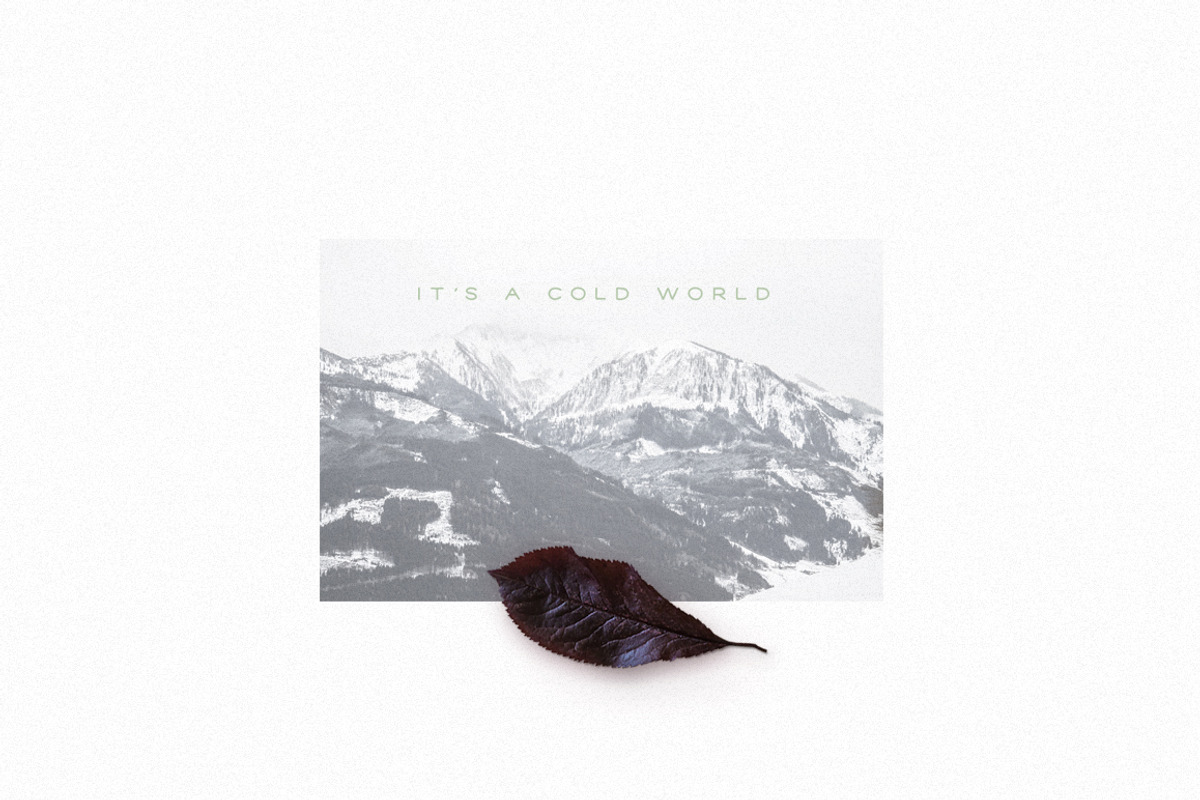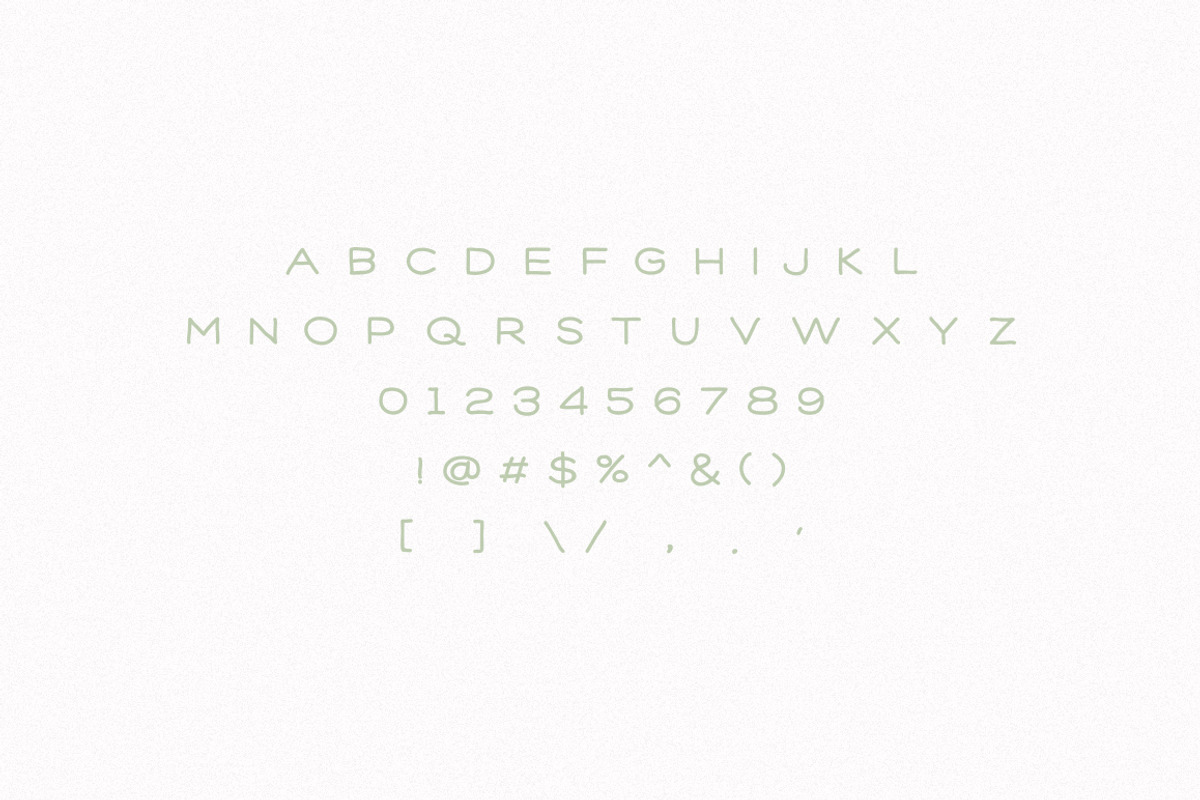
Cold Font
Cold Font by Union Dues Design Co. is a font selected for branding, posters, packaging, typography.
Why Cold Font is worth a look
Cold Font by Union Dues Design Co. fits naturally into Branding, posters, packaging, typography.